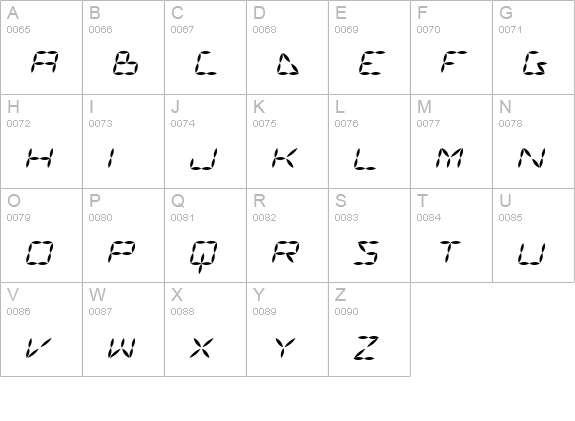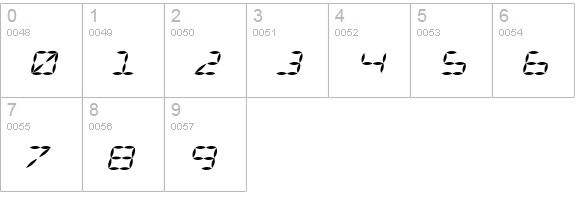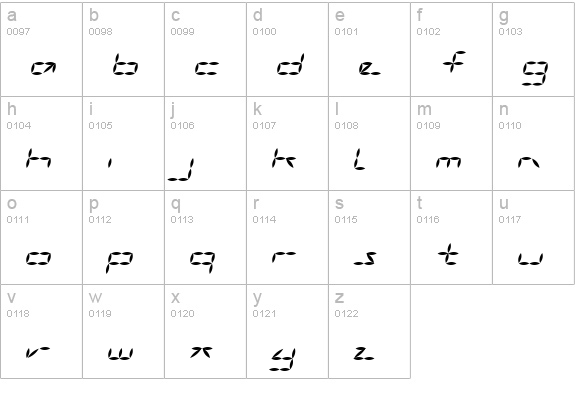
Vanguard III AOE BoldOblique Font Details
Vanguard III AOE BoldOblique is a captivating and dynamic font that exudes confidence and modernity. This versatile typeface combines boldness and elegance, making it the perfect choice for eye-catching headlines, striking logos, and impactful designs. The distinctive bold oblique style of Vanguard III AOE adds an extra layer of flair and sophistication, making any text stand out with its unique slanted appearance. Whether it's for a magazine layout or a promotional banner, this font is sure to grab attention and leave a lasting impression. One of the most remarkable aspects of Vanguard III AOE BoldOblique is that it is freely available to download at FontsMarket.com. This means that designers and enthusiasts alike can access this incredible font without any cost or restrictions. Its availability on FontsMarket.com ensures that everyone has the opportunity to incorporate this exceptional typeface into their creative projects. With its clean lines, subtle curves, and sharp angles, Vanguard III AOE BoldOblique adds a touch of contemporary elegance to any design. Its versatility allows it to complement a wide range of styles and themes, making it an ideal choice for both digital and print applications. Whether used in advertising, branding, or editorial design, Vanguard III AOE BoldOblique delivers a powerful visual impact. Its bold and oblique nature commands attention, making it a go-to font for those seeking to make a bold statement. Download Vanguard III AOE BoldOblique now from FontsMarket.com and unleash your creativity with this remarkable font. With its captivating design and its availability free of charge, this font is a valuable asset for any designer looking to elevate their projects to new heights.